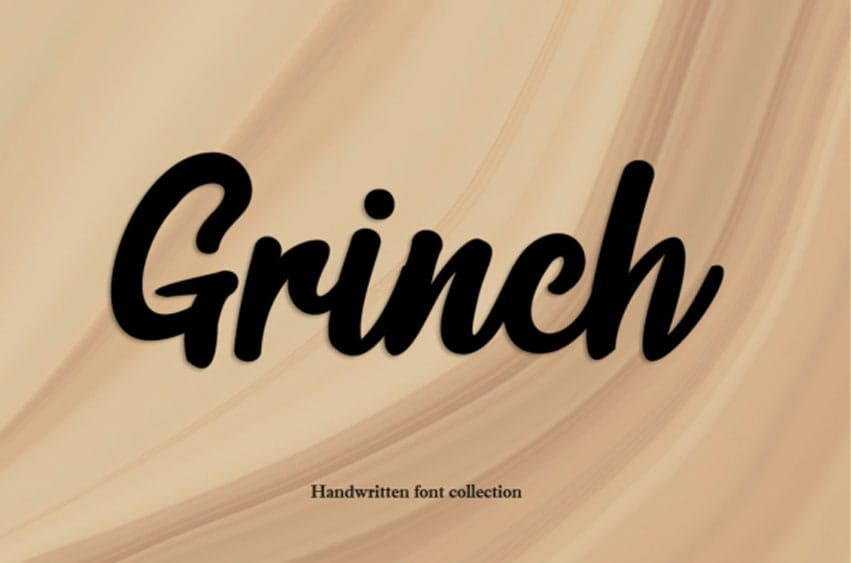
Grinch Script Font is a lovely and delicate script font that exudes elegance and class.
This font was particularly crafted for those who need a beautiful and refreshing look for their designs.